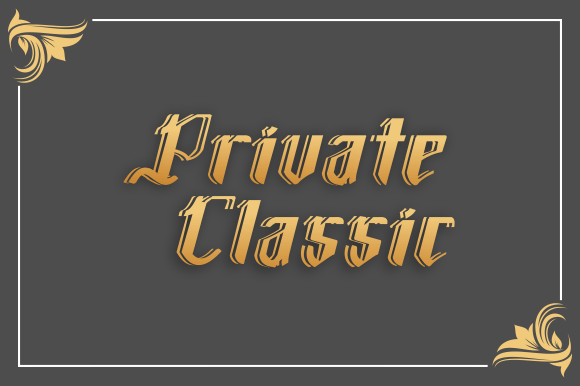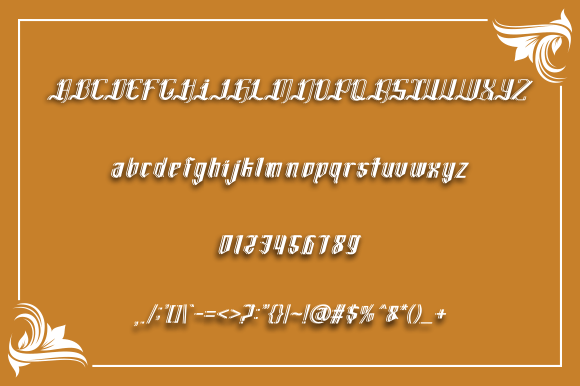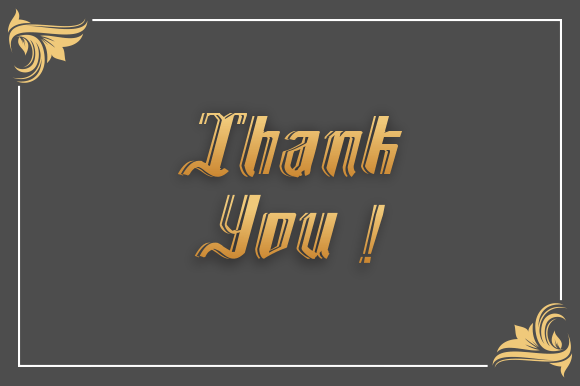
Introduction to Presto Victory Font
Presto Victory is a distinct blackletter font that will impress with its stylish features.
Use it for product packaging, branding, or other projects that need bold and daring typography .
Presto Victory Font offers exceptional quality and versatility, making it a valuable addition to your design toolkit. Whether you’re creating for personal projects or commercial use, Presto Victory Font delivers professional results.